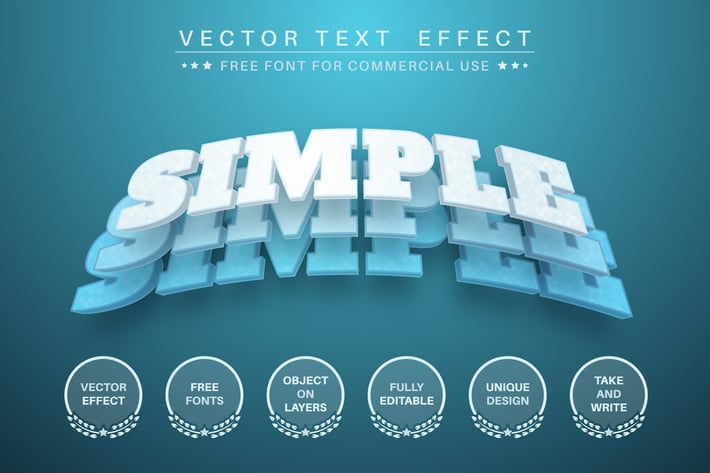
3D Layers - editable text effect, font style
Hello! I'm happy to introduce my new text effect "3D layer". Just write your word and the effect will apply! Be as creative as you like to be in expressing yourself using this unique “3D layer”. Effect is perfect for any project that needs a unique handy touch whatever else your imagination leads you to!